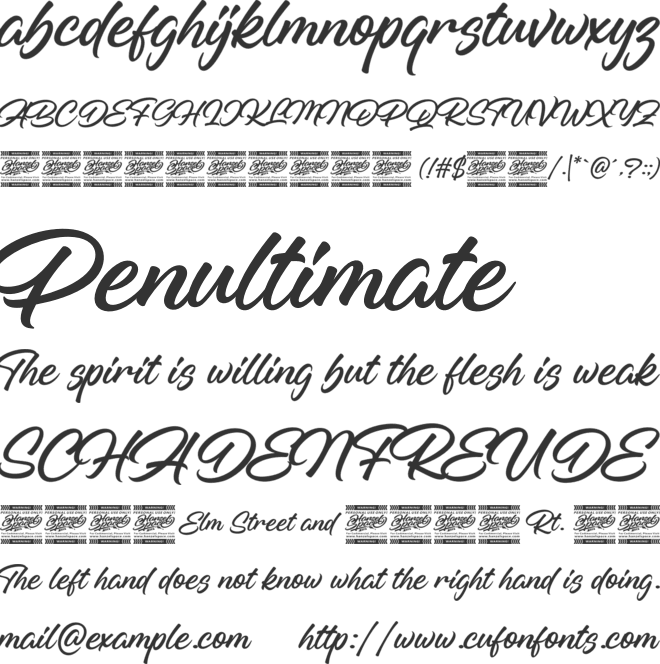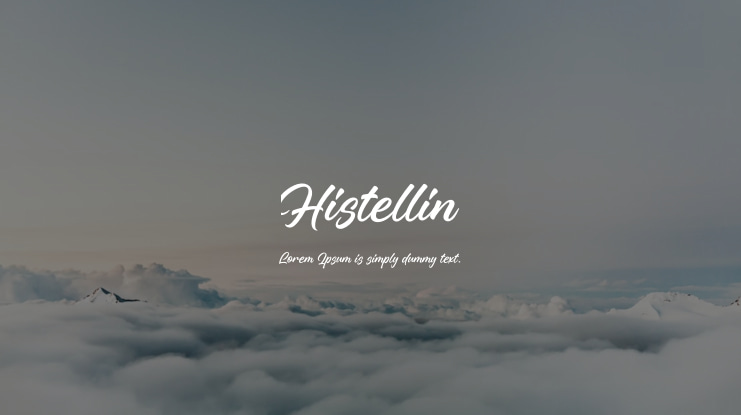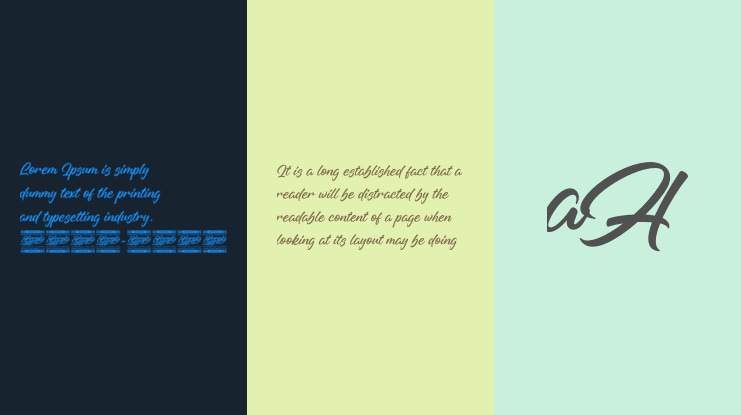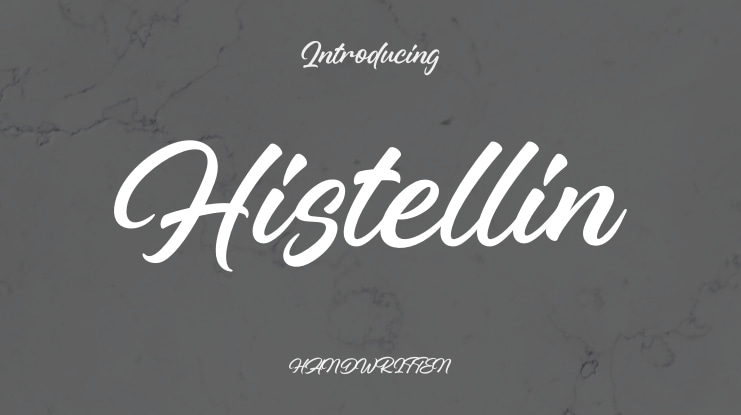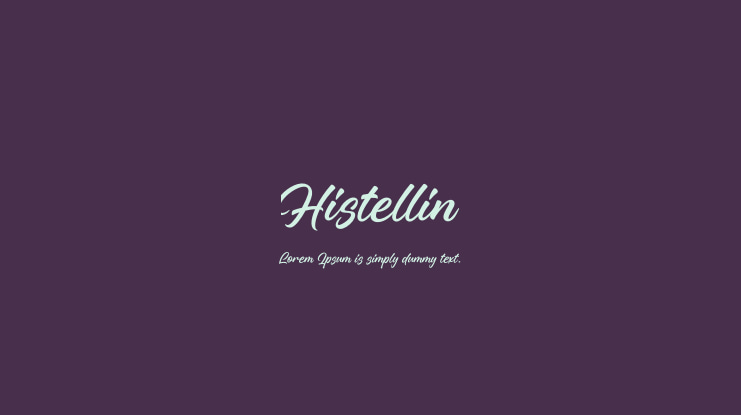
Are you in search of a contemporary and stylish script font? Are you looking to create designs that are unique, inspiring, and full of creativity? Look no further as we offer the perfect solution for you.
Introducing the new font "Histellin," designed in a modern classic style with distinctive curves that give each letter its own essence. This font will seamlessly complement all your design projects.
Histellin is tailored for creating logos or lettering-style logos for your brand or clients. Additionally, it can be utilized for various graphic elements such as badges, signs, packaging, headlines, titles, apparel, posters, and more.
This font embodies personal attributes like strength, confidence, dynamism, readability, and energy.